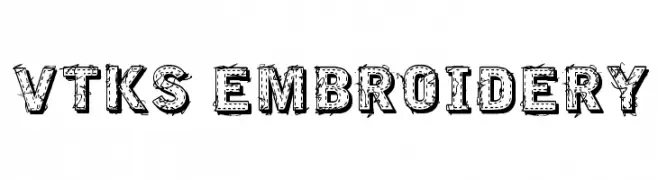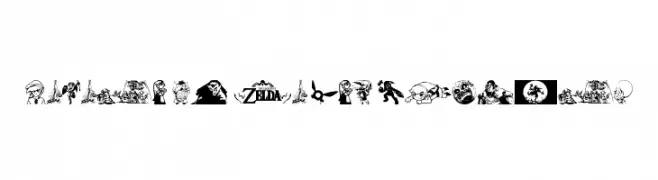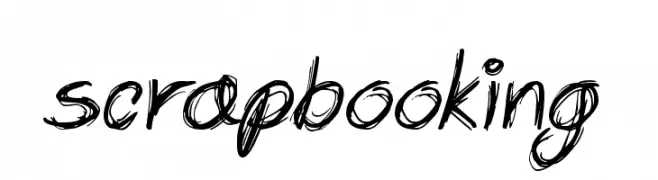
A textured, embroidery-inspired font with a bold, handcrafted look.
A pictorial dingbat font with fantasy adventure game motifs.
A playful, hand-drawn font with a sketch-like texture and dynamic strokes.